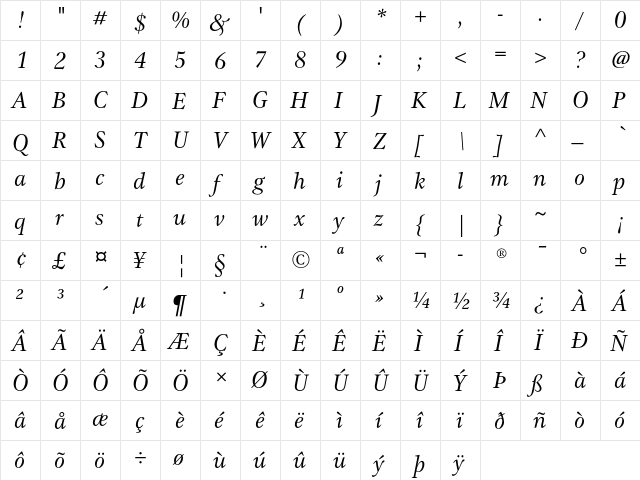
Gamma ITC Std Book Italic
| Designer | Jovica Veljovic |
Design Context for Gamma ITC Std Typeface
Gamma ITC Std takes a measured approach to typography — its balanced proportions and neutral character make it a reliable workhorse for both digital and print work. Its italic angle brings a sense of urgency and motion to the letterforms.
Pro Tip: Use Gamma ITC Std for emphasis, pull quotes, and subheadings where its slanted energy can add rhythm to the layout.